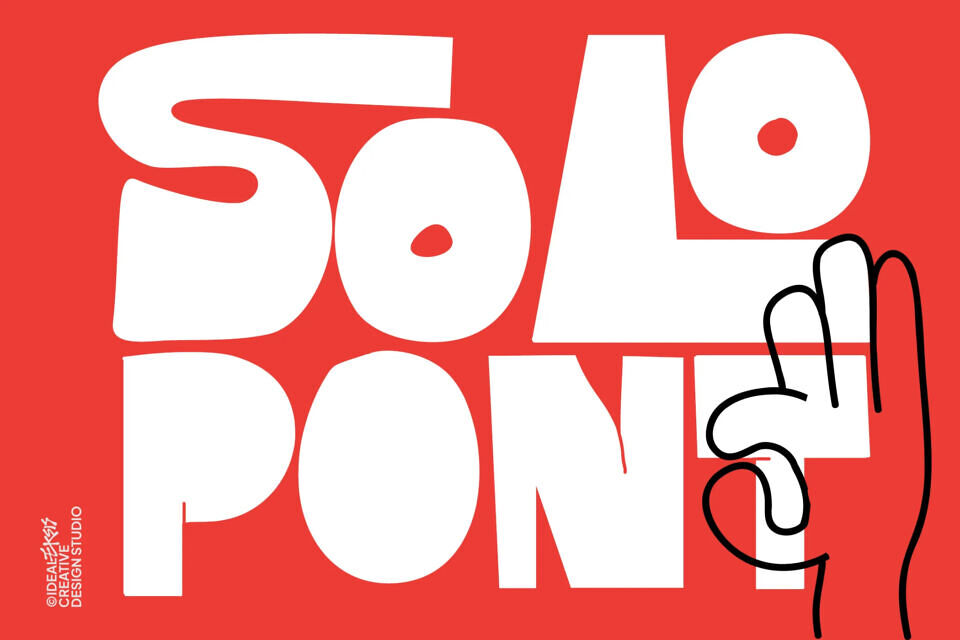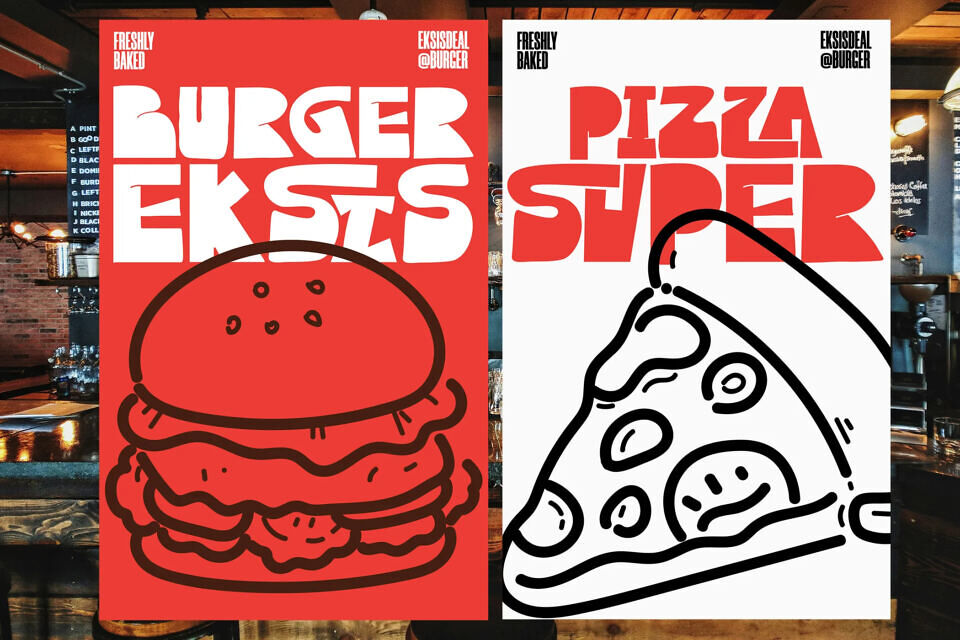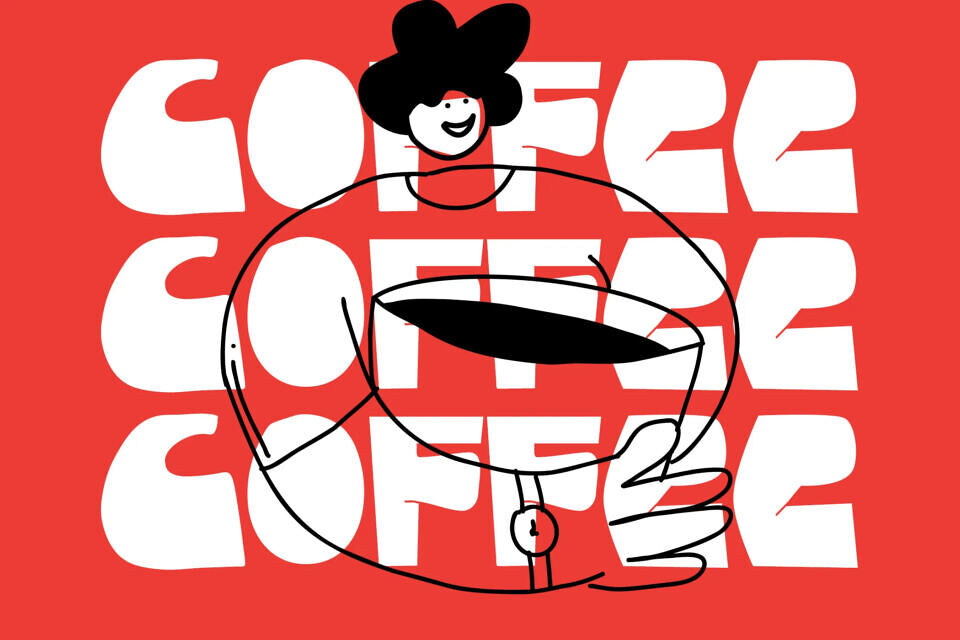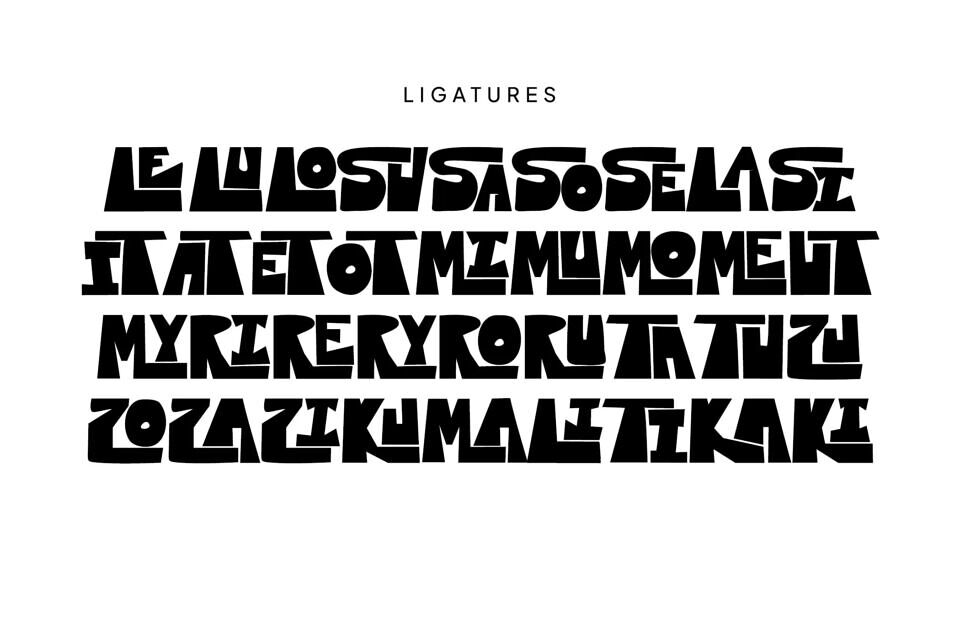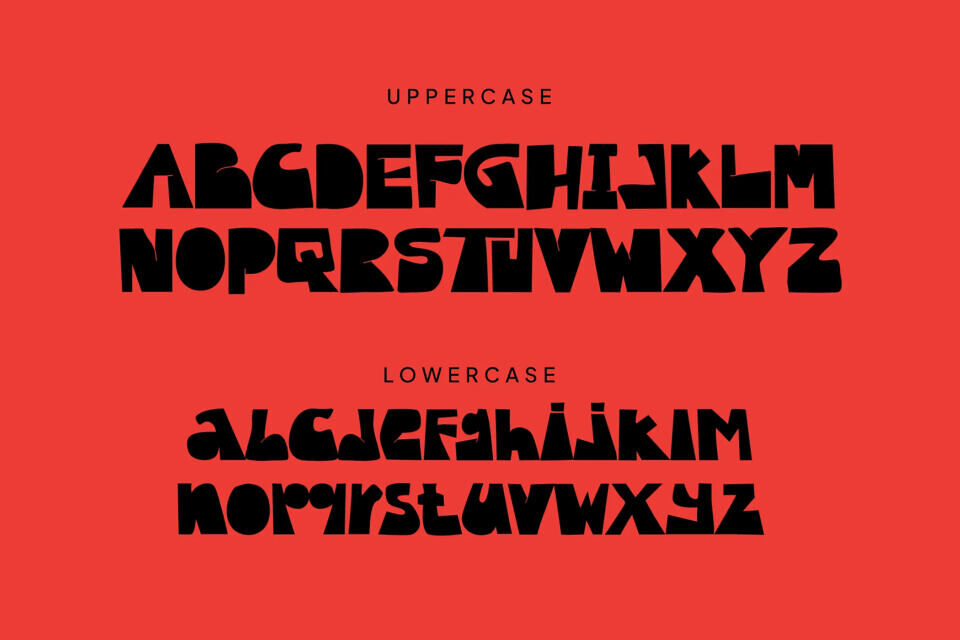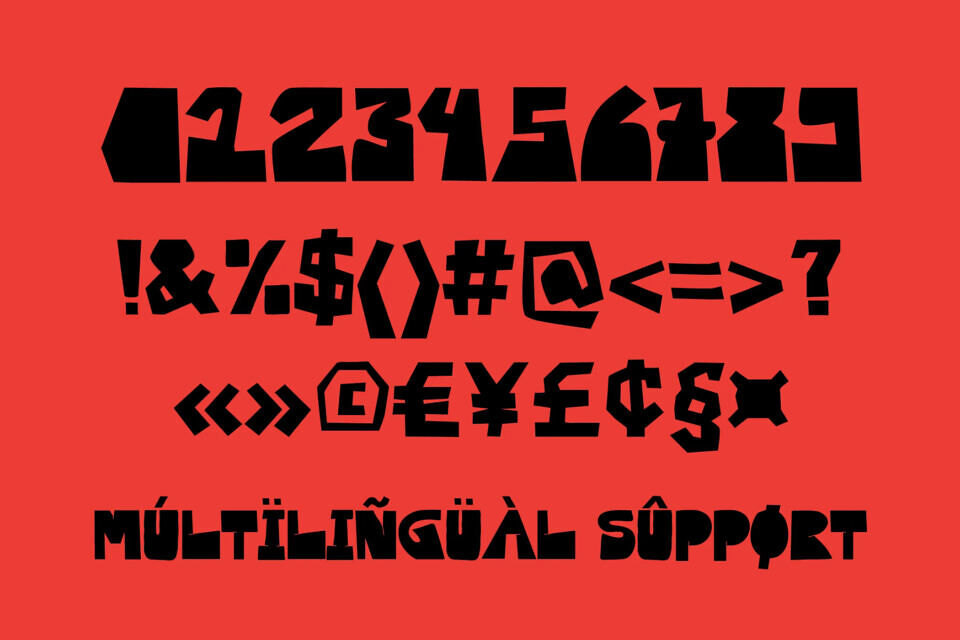
Solo Pont Font
Solo Pont is a bold and playful display typeface with a retro-modern personality and strong visual impact. Featuring chunky geometric letterforms, smooth curves, and expressive proportions, this font creates a fun yet stylish appearance that instantly grabs attention.
Its unique character makes it perfect for branding, posters, tote bag designs, packaging, editorial headlines, and contemporary graphic projects that need a fresh and creative look.